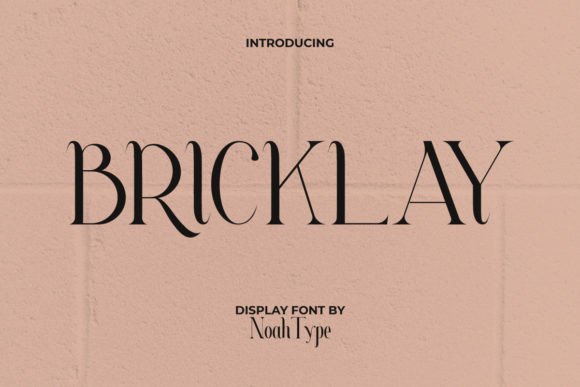
A First Impression: What Makes Bricklay Special
Bricklay is more than just a font – it’s a design solution that exudes sophistication and professionalism. Its clean lines, balanced proportions, and timeless elegance make it perfect for a wide range of projects, from corporate branding to editorial layouts. Whether you’re a designer, crafter, or creative hobbyist, Bricklay is an excellent choice for anyone looking to add a touch of refinement to their work.
What I Love About Bricklay ✨
- ✅ Clean and modern design: Bricklay’s sleek lines and balanced proportions make it perfect for a wide range of design projects.
- ✅ Timeless elegance: This font’s classic look ensures it won’t go out of style anytime soon, making it a great investment for designers.
- ✅ High legibility: Bricklay’s clear and concise lettering makes it easy to read, even at smaller font sizes.
- ✅ Versatile: From corporate branding to editorial layouts, Bricklay is a versatile font that can adapt to various design needs.
- ⚠️ Limited free alternatives: While Bricklay is a unique font, there aren’t many free alternatives that match its quality and style.
- ⚠️ May require adjustment for body text: Bricklay’s sleek design can make it a bit too bold for body text; some adjustment may be needed to achieve the right balance.
The Story Behind Bricklay: Designer Inspiration
Bricklay was designed with the goal of creating a modern serif font that combines elegance and sophistication. Inspired by traditional serif fonts, the designer aimed to create a font that would be both timeless and versatile. Through a careful balance of clean lines, balanced proportions, and attention to detail, Bricklay was born – a font that has quickly become a favorite among designers and crafters alike.
Q: What makes Bricklay a good choice for corporate branding?
A: Bricklay’s clean and modern design, combined with its timeless elegance, make it an excellent choice for corporate branding. Its professional look and feel can help elevate a brand’s image and make it stand out in a crowded market.
Q: Can I use Bricklay for body text?
A: Yes, Bricklay can be used for body text, but it may require some adjustment to achieve the right balance. Its sleek design can make it a bit too bold for body text, so it’s essential to experiment with different font sizes and settings to find the perfect fit.
Q: Is Bricklay suitable for digital use?
A: Yes, Bricklay is designed to be versatile and can be used for both print and digital applications. Its clean lines and balanced proportions make it easy to read on screens, making it an excellent choice for digital projects.
Q: Can I use Bricklay for editorial layouts?
A: Absolutely! Bricklay’s classic look and feel make it an excellent choice for editorial layouts. Its high legibility and clean design ensure that it will work well for body text, headlines, and titles.